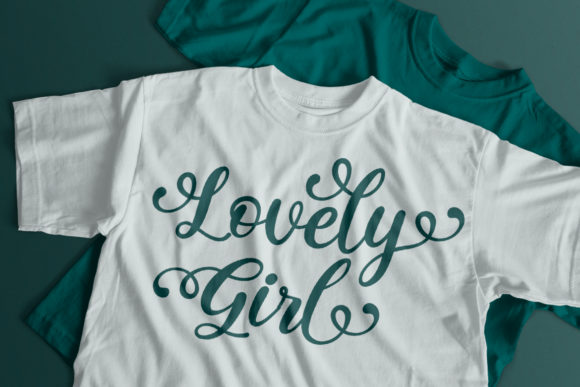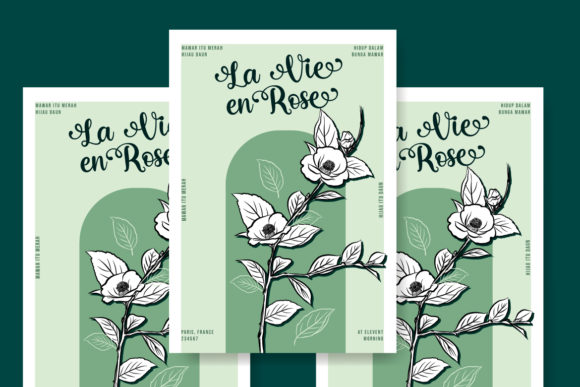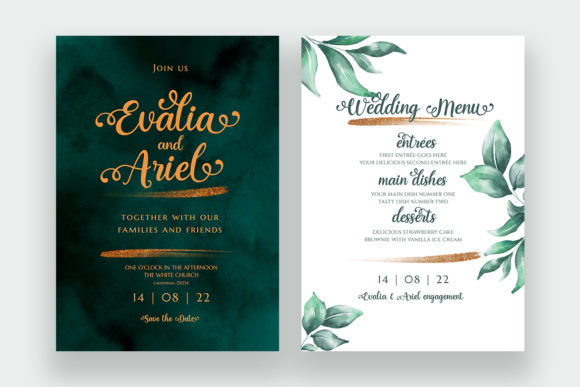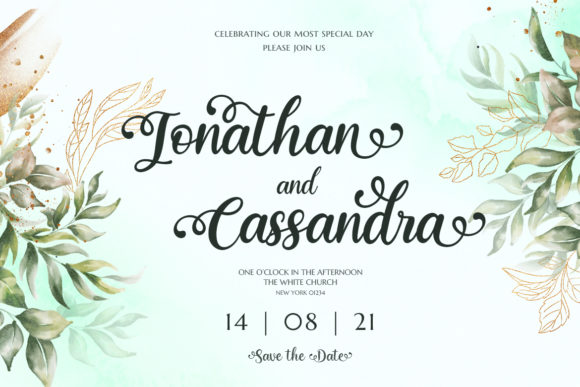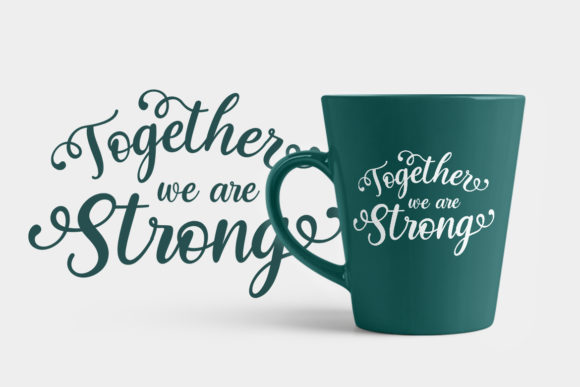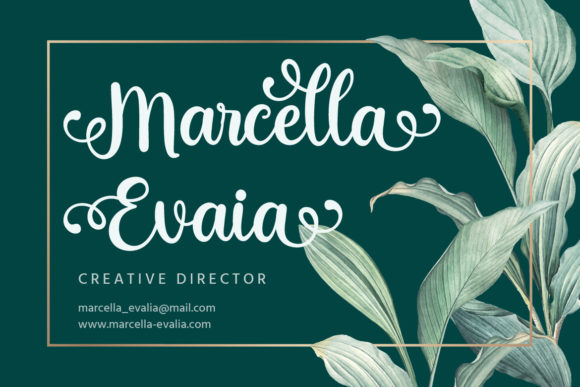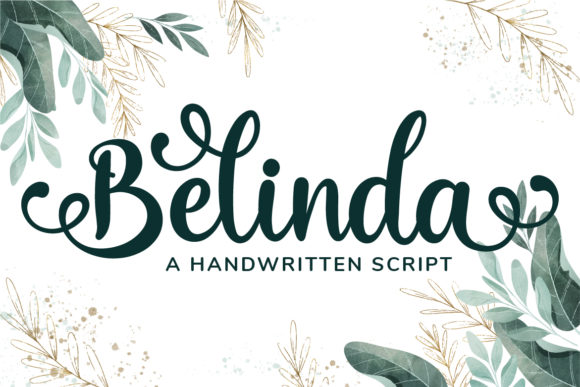
Discover the Charm of Belinda Font: A Timeless Handwritten Delight
Are you on the hunt for a font that exudes elegance, sophistication, and a touch of playfulness? Look no further than the Belinda Font, a lovely and timeless handwritten font that’s perfect for creating eye-catching logos, branding, and quotes. In this article, we’ll dive into the world of Belinda Font, exploring its unique features, benefits, and uses, and why it’s a must-have for designers and crafters alike.
The Beauty of Belinda Font
Belinda Font is a stunning handwritten font that’s sure to capture your heart. Each letter has a unique and beautiful touch, making it a joy to work with. The font’s flowing curves and delicate lines give it a feminine and whimsical feel, perfect for designs that require a touch of elegance and sophistication. Whether you’re creating a logo, branding materials, or quotes, Belinda Font is the perfect choice.
What Makes Belinda Font Special?
So, what sets Belinda Font apart from other fonts? Here are a few features that make it a standout:
- Unique and Beautiful Touch: Every letter in Belinda Font has a distinct and beautiful touch, making your designs truly unique and eye-catching.
- PUA Encoded: Belinda Font is PUA (Private Use Area) encoded, which means you can access all the glyphs and swashes with ease. This feature makes it easy to use the font in various design software, including Adobe Illustrator and Photoshop.
- Timeless and Versatile: Belinda Font is a timeless and versatile font that can be used in a variety of designs, from logos and branding to quotes and social media graphics.
Benefits of Using Belinda Font
Using Belinda Font in your designs comes with a range of benefits, including:
- Ease of Use: Belinda Font is easy to use, even for those who are new to design. The font is compatible with most design software, and the PUA encoding makes it easy to access all the glyphs and swashes.
- Customization: With Belinda Font, you can create unique and customized designs that reflect your brand’s personality. The font’s versatility and range of glyphs and swashes make it easy to experiment with different styles and effects.
- Professional-Looking Designs: Belinda Font is perfect for creating professional-looking designs that are sure to impress. The font’s elegant and sophisticated feel makes it ideal for designs that require a touch of luxury and refinement.
Who Can Benefit from Belinda Font?
Belinda Font is perfect for a range of designers and crafters, including:
- Graphic Designers: Graphic designers can use Belinda Font to create stunning logos, branding materials, and graphics for their clients.
- Crafters: Crafters can use Belinda Font to create beautiful and unique designs for their DIY projects, such as handmade cards, scrapbooking, and home decor.
- Social Media Influencers: Social media influencers can use Belinda Font to create eye-catching graphics and quotes that will engage and inspire their followers.
Tips for Using Belinda Font
Here are a few tips for using Belinda Font in your designs:
- Experiment with Different Sizes and Colors: Belinda Font looks great in a range of sizes and colors. Experiment with different combinations to find the one that works best for your design.
- Pair with Other Fonts: Belinda Font pairs well with other fonts, such as sans-serif and script fonts. Experiment with different pairings to create unique and interesting effects.
- Use the Glyphs and Swashes: Don’t be afraid to experiment with the glyphs and swashes in Belinda Font. These elements can add a touch of elegance and sophistication to your designs.
| Author | Fallengraphic |